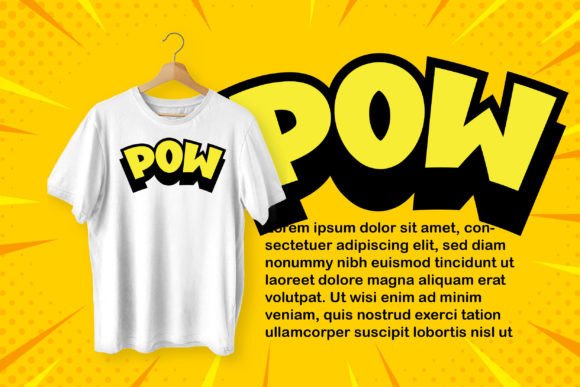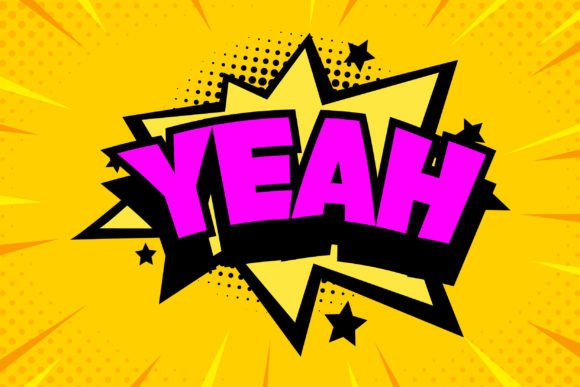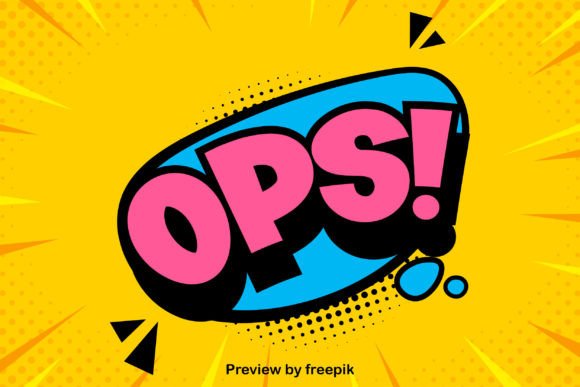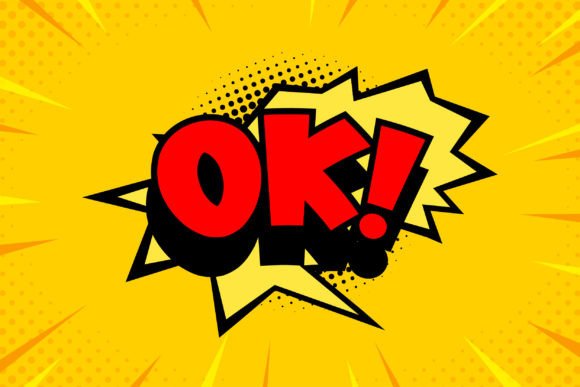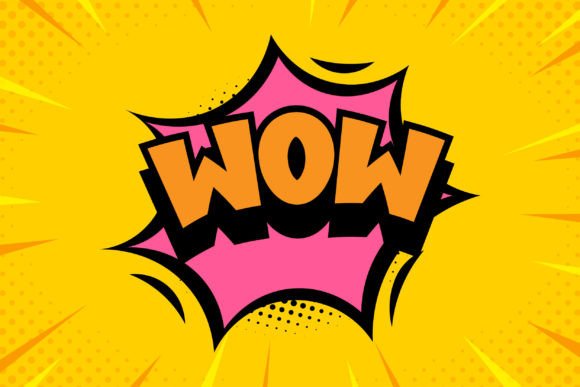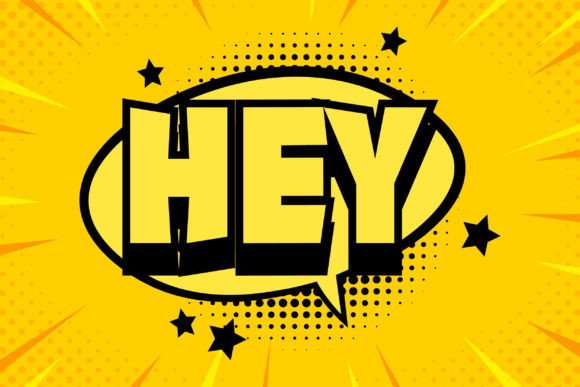
Unleash Your Creativity with Boom Pow Font: The Ultimate Display Font for Bold Designs
Are you a designer, craftsperson, or artist looking for a font that can add a dash of excitement and energy to your projects? Look no further than the Boom Pow font! This bold display font is the perfect choice for anyone who wants to make a statement with their designs. Inspired by the whimsical world of cartoons and the dynamic flair of superhero comic books, Boom Pow is sure to captivate attention and leave a lasting impression.
The Inspiration Behind Boom Pow
Boom Pow font draws its inspiration from the vibrant and dynamic world of cartoons and superhero comic books. The font’s creator aimed to capture the essence of the bold, playful, and energetic style that is characteristic of these mediums. The result is a font that exudes a sense of fun, excitement, and adventure, making it perfect for designs that require a bold and attention-grabbing approach.
Key Features of Boom Pow Font
- Bold and Eye-Catching: Boom Pow font is designed to make a statement. Its bold and chunky letters are sure to grab attention and dominate any design.
- Whimsical and Playful: The font’s inspiration from cartoons and comic books gives it a playful and whimsical feel, perfect for designs that require a touch of humor and lightheartedness.
- Versatile: Boom Pow font can be used in a wide range of applications, from posters and book covers to signage, advertisements, t-shirts, apps, and games.
- Robust Visual Appeal: The font’s bold and dynamic design ensures that it will add a robust visual appeal to any project, making it perfect for designers and craftspersons who want to create eye-catching designs.
Use Cases for Boom Pow Font
Boom Pow font is perfect for a wide range of design projects, including:
- Posters and Flyers: Add a bold and attention-grabbing touch to your posters and flyers with Boom Pow font.
- Book Covers: Make your book covers stand out with the font’s bold and dynamic design.
- Signage and Advertisements: Use Boom Pow font to create eye-catching signage and advertisements that are sure to grab attention.
- T-Shirts and Apparel: Add a fun and playful touch to your t-shirts and apparel with the font’s bold and whimsical design.
- Apps and Games: Use Boom Pow font to add a robust visual appeal to your apps and games, making them more engaging and fun for users.
Why Choose Boom Pow Font?
- Unique and Distinctive: Boom Pow font is a unique and distinctive typeface that will set your designs apart from the crowd.
- High-Quality Design: Boom Pow font is designed to high-quality standards, ensuring that it will look great in any design.
- Delightful User Experience: The font’s bold and dynamic design ensures that it will provide a delightful user experience, making it perfect for designers and craftspersons who want to create engaging and fun designs.
In conclusion, Boom Pow font is the perfect choice for designers and craftspersons who want to add a bold and attention-grabbing touch to their designs. With its inspiration from cartoons and superhero comic books, this font is sure to captivate attention and leave a lasting impression. Whether you’re creating posters, book covers, signage, advertisements, t-shirts, apps, or games, Boom Pow font is the perfect choice. So why wait? Download Boom Pow font today and unleash your creativity!